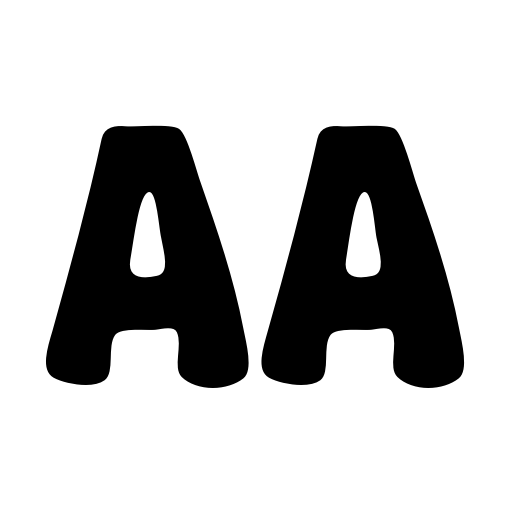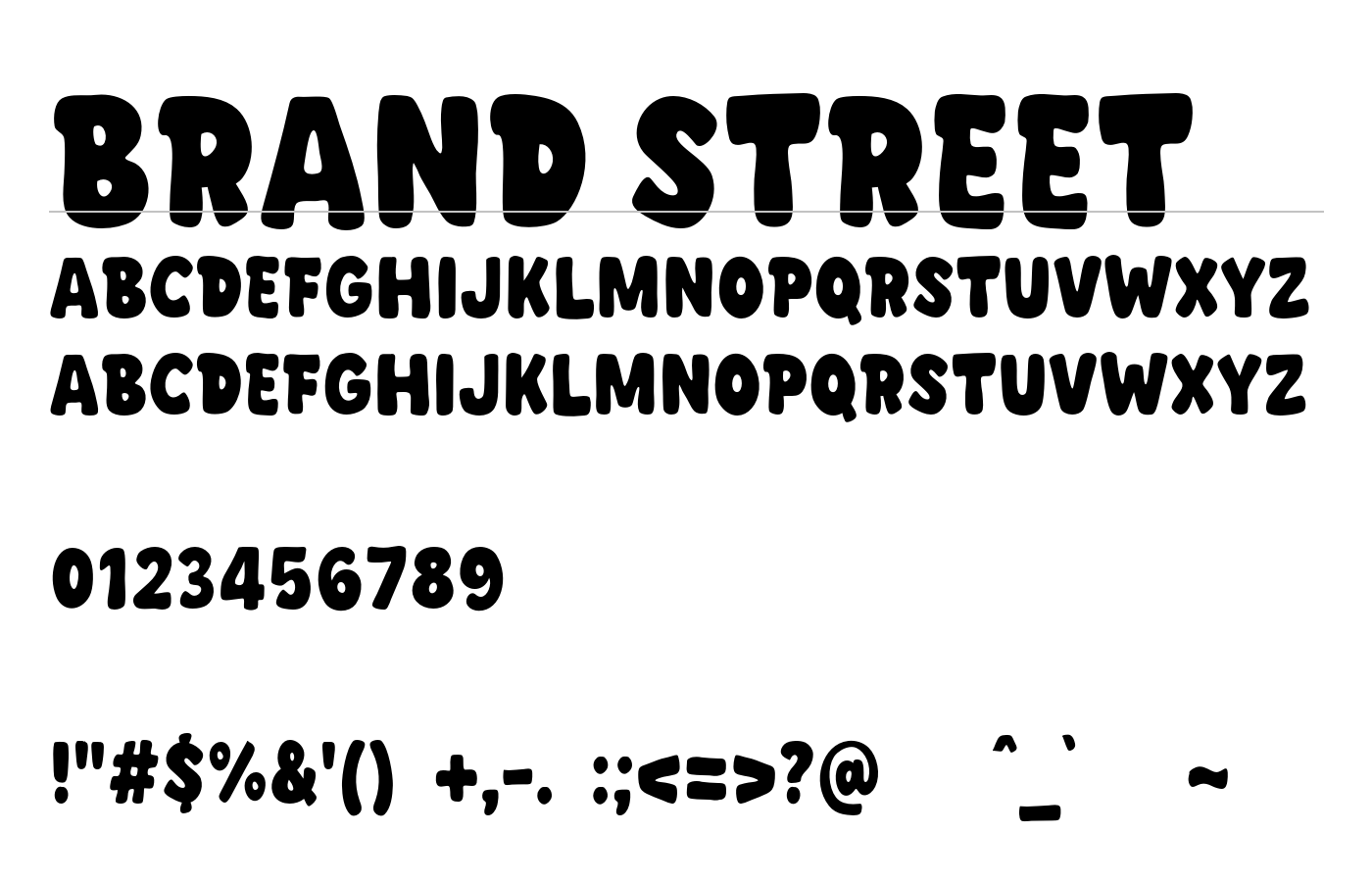
Brand Street is a bold, playful sans serif font with chunky, rounded letterforms that give it a friendly and approachable vibe. Its thick strokes, moderate contrast, and whimsical shapes make it ideal for eye-catching headlines, logos, and branding that want to convey fun and creativity. This font works great for casual, youthful designs, especially in posters, packaging, and any setting where a lively and informal tone is desired.
Brand Street Font
About Brand Street Font
| Font family | Brand Street Font |